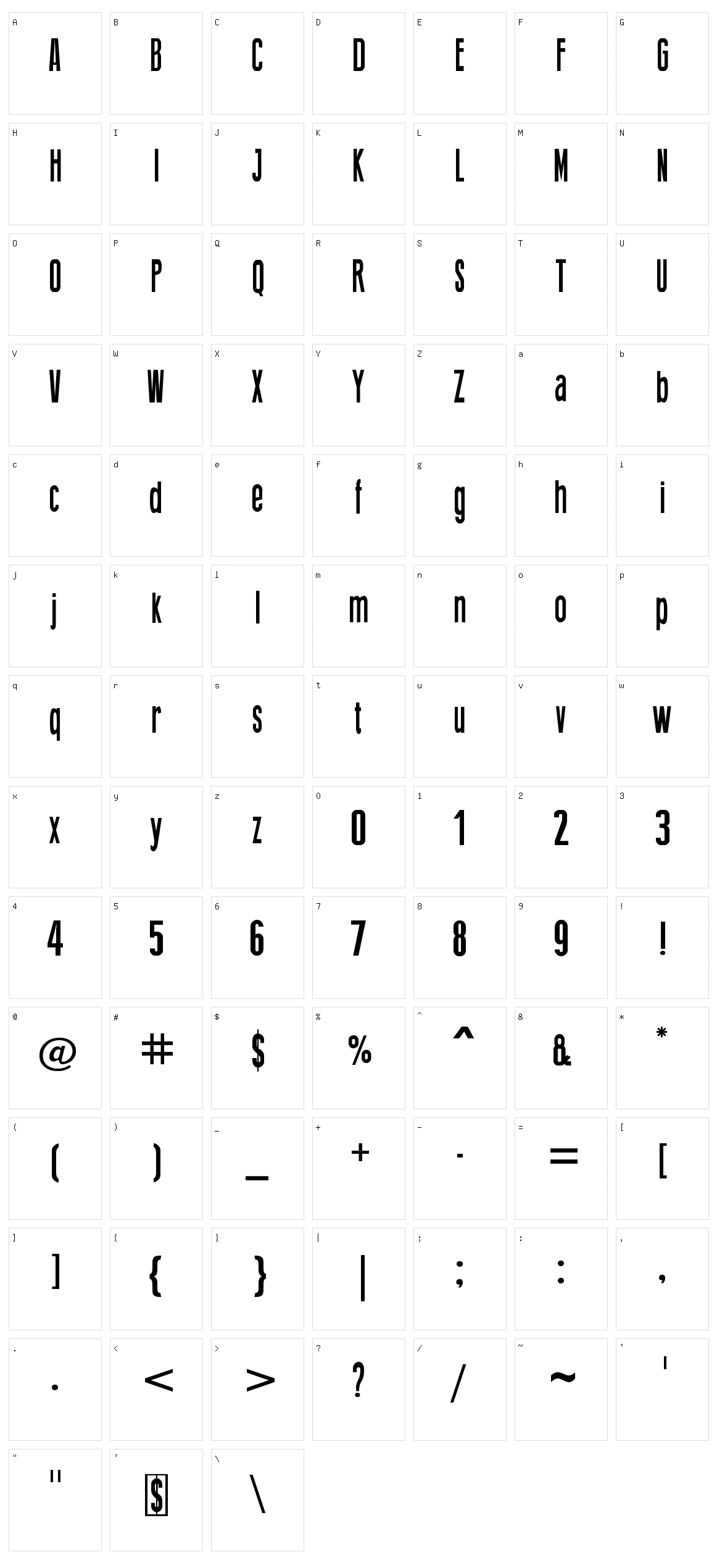
The free font Thing Press is carefully designed by Galdino Otten Fonts, showcasing a thoughtful balance of creativity and usability and falls under the Sans serif font style. When you download the ZIP file, it contains only 21.55 KB of font files, making it lightweight and quick to download. Please review the license details below to understand permitted usage and distribution rights. If license information is not available, we recommend using this font for personal projects only or contacting the author directly for commercial usage permissions.